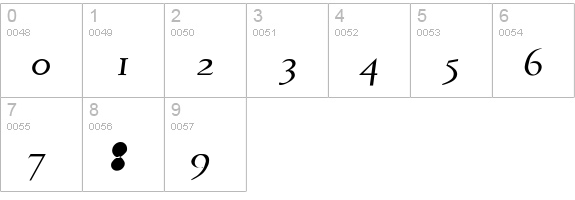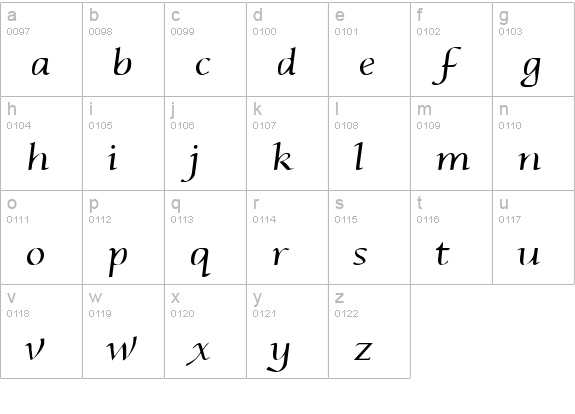
PhaedrusItalic Font Details
PhaedrusItalic font is an exquisite and elegant typeface that exudes a sense of sophistication and refinement. Its delicate and flowing letterforms are imbued with a timeless charm, making it perfect for adding a touch of class to any design project. The beauty of PhaedrusItalic lies in its graceful curves and subtle details, which lend a sense of sophistication to any piece of text it adorns. Each letter is meticulously crafted, with just the right balance between thick and thin strokes, resulting in a harmonious and visually pleasing composition. This font is created with versatility in mind, making it suitable for a wide range of applications. Whether you are designing a logo, crafting an invitation, or typesetting a book, PhaedrusItalic will effortlessly elevate your project to new heights of elegance and professionalism. One of the most remarkable aspects of PhaedrusItalic is that it is freely available to download at FontsMarket.com. This means that you can enhance your designs with this stunning font without any financial constraints. The creators of PhaedrusItalic believe that beauty and quality should be accessible to all, and by offering it for free, they have made it possible for designers and creatives to fully explore its potential without limitations. In conclusion, PhaedrusItalic font is a true gem in the world of typography, capturing the essence of sophistication and elegance. Its graceful letterforms and versatility make it a valuable addition to any designer's toolkit. Download it for free at FontsMarket.com and unleash your creativity with this exquisite typeface.